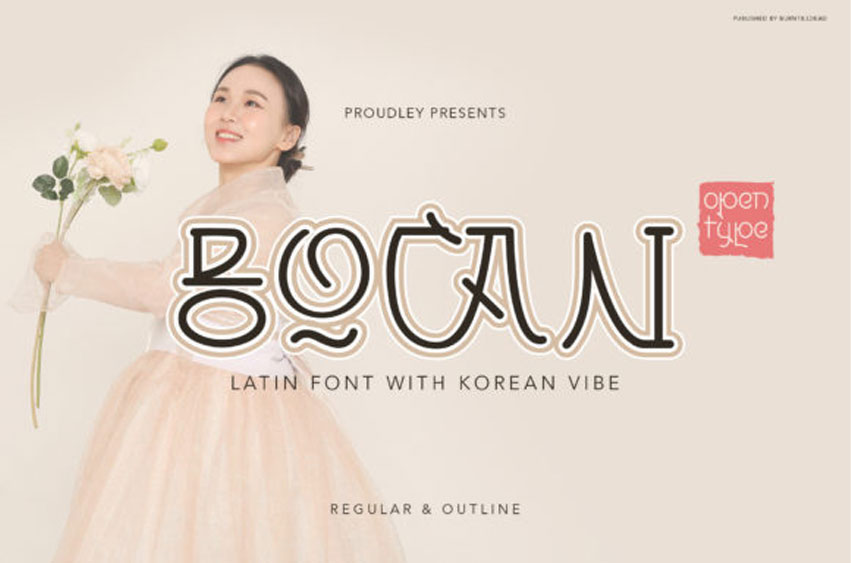
Bocan Font
Bocan Font is a modern and stylish display font inspired by Korean movies and posters. It looks unique and iconic, just perfect for bringing Korean vibes into your designs!